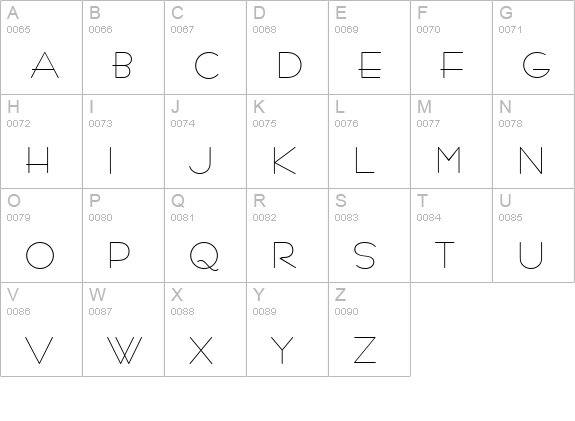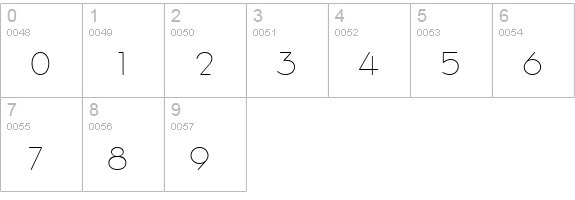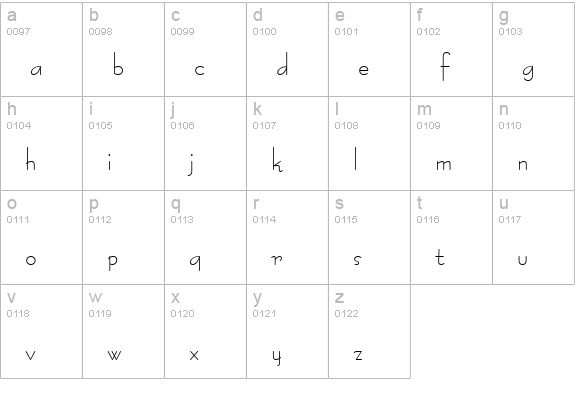
BernhardFasD font is a stunning display typeface that exudes elegance and sophistication. With its intricate details and classic design, this font is perfect for adding a touch of refinement to any project. The graceful curves and sharp edges of BernhardFasD make it a versatile choice for a wide range of design applications. What makes BernhardFasD font even more appealing is that it is available for free download at FontsMarket.com. This means that you can easily access this beautiful font and use it in your projects without any cost involved. Whether you're working on a branding project, a poster design, or any other creative endeavor, BernhardFasD font is sure to elevate your work with its timeless charm and visual appeal. Don't miss out on the opportunity to enhance your designs with this exquisite font – download BernhardFasD for free today at FontsMarket.com!